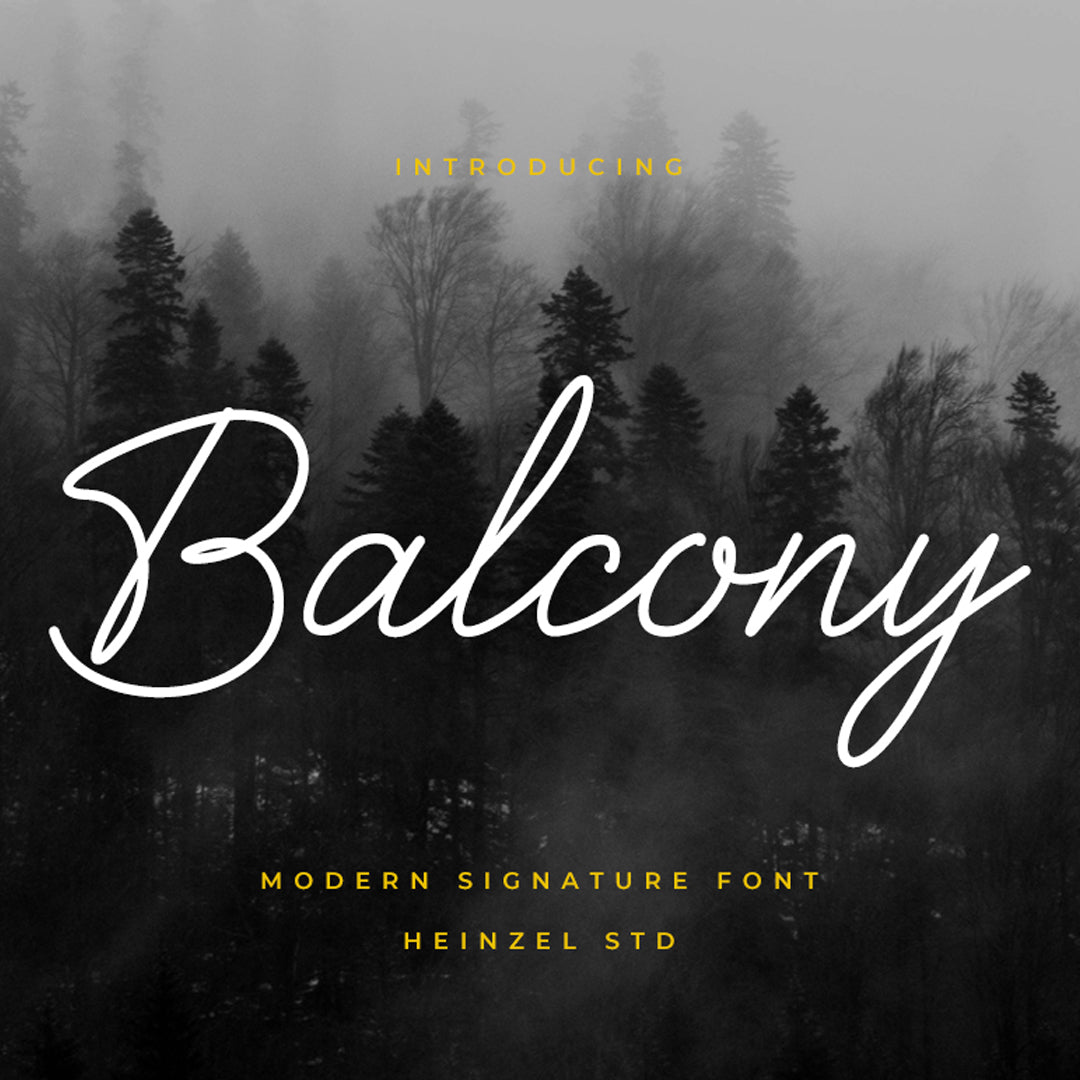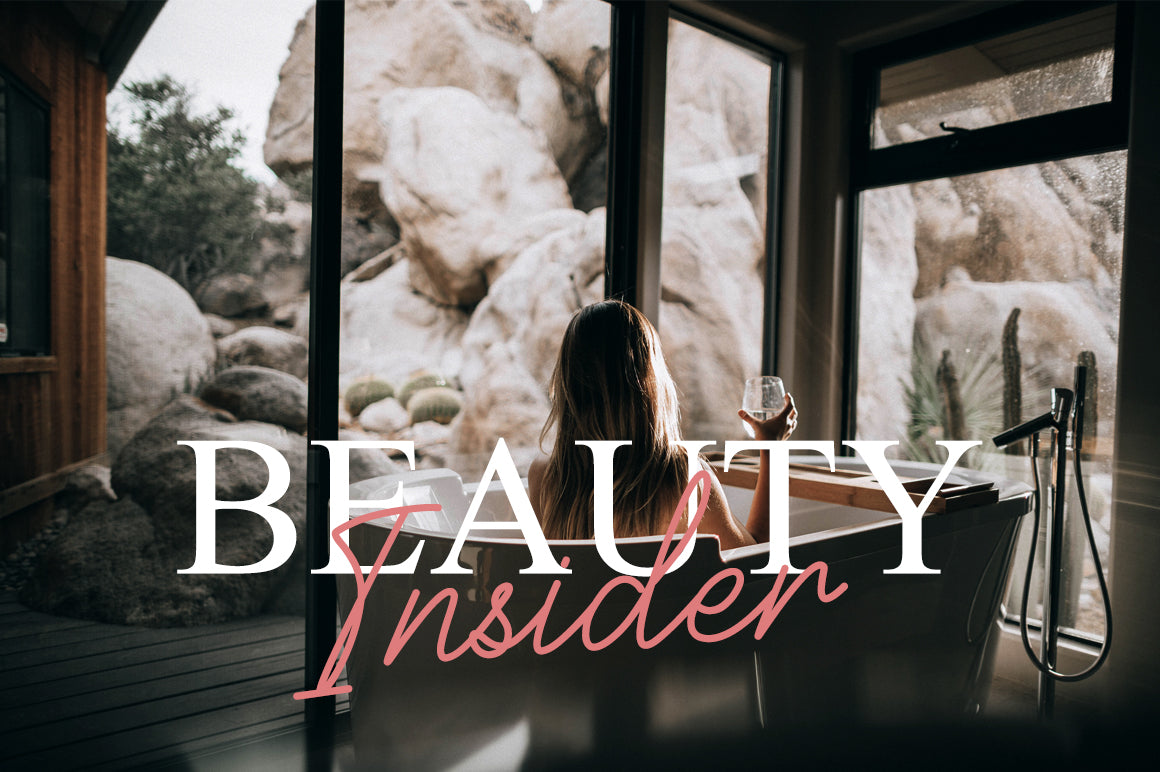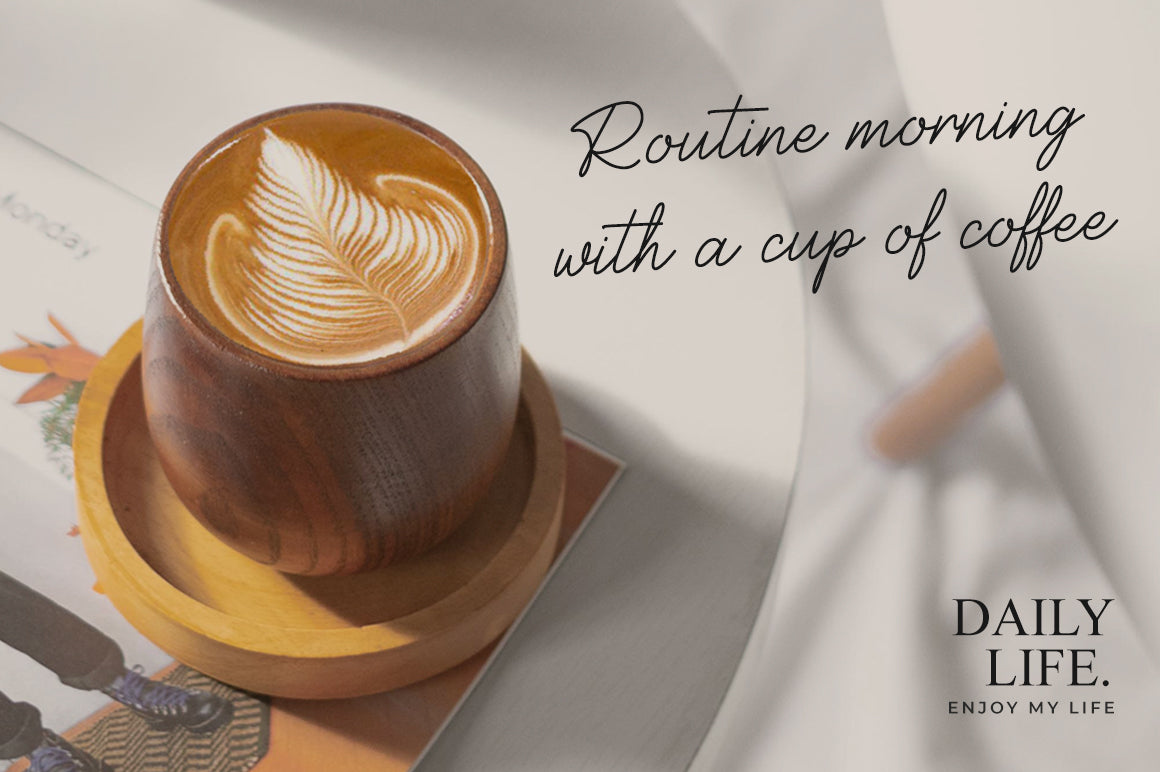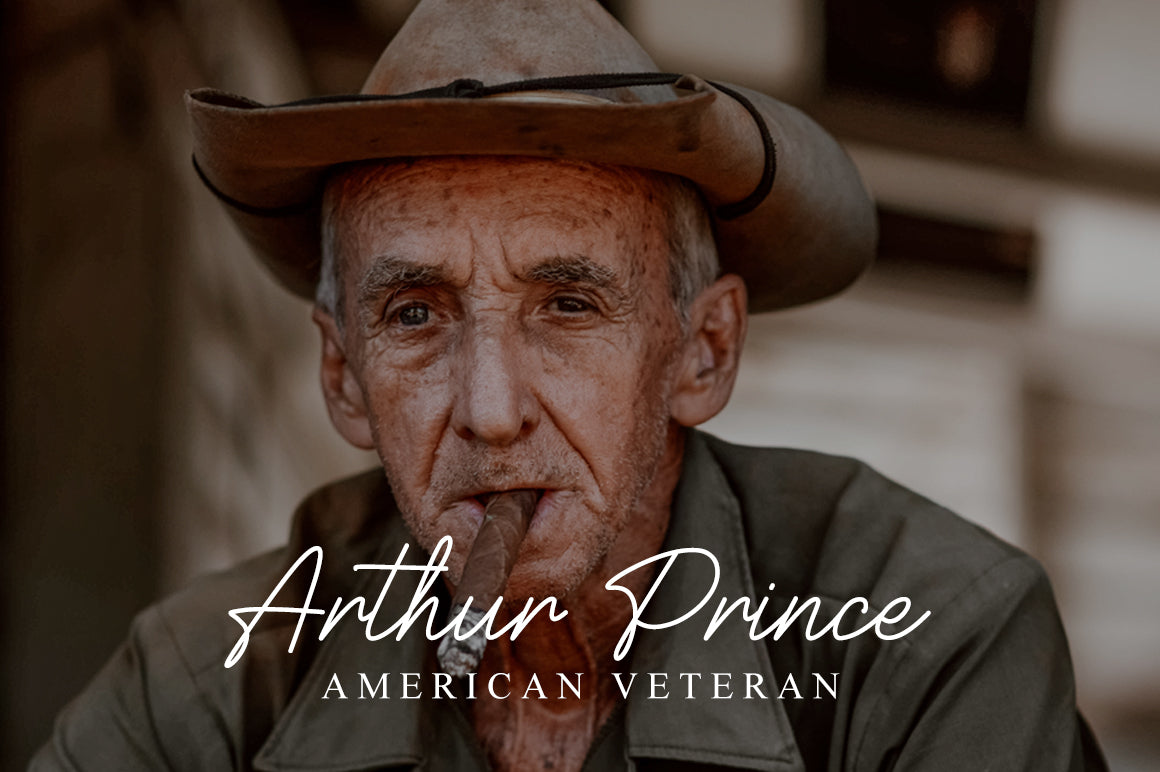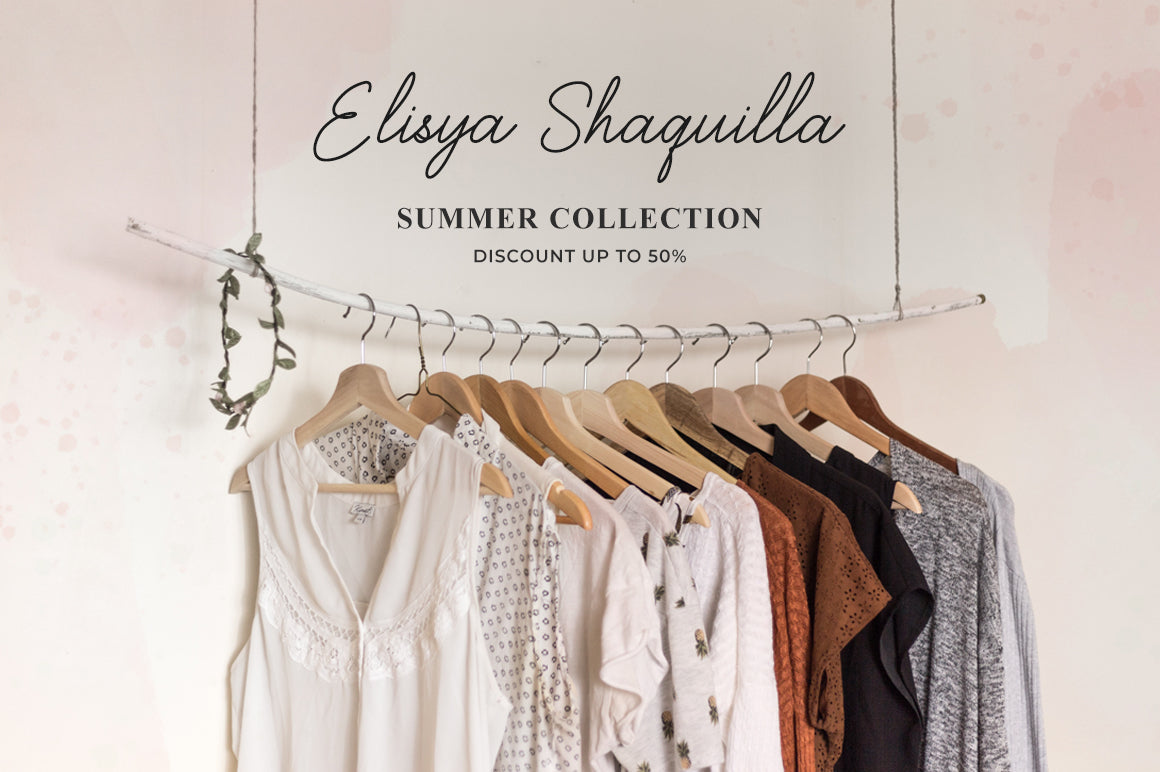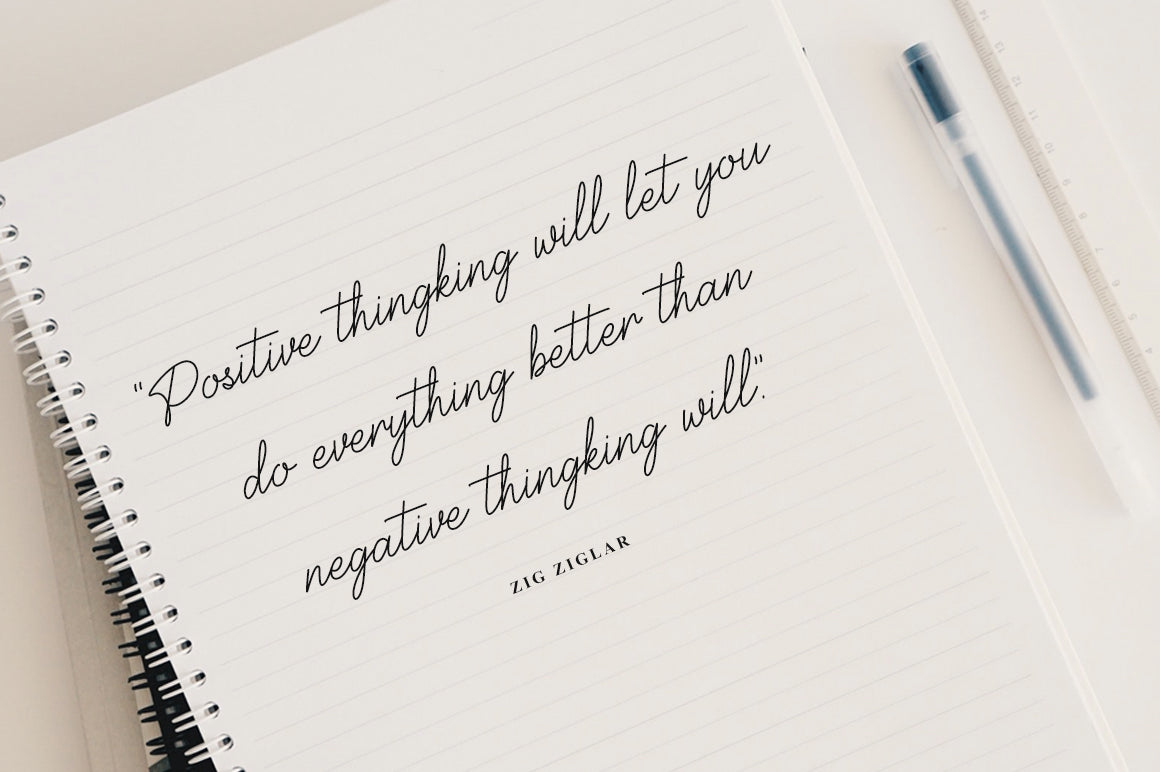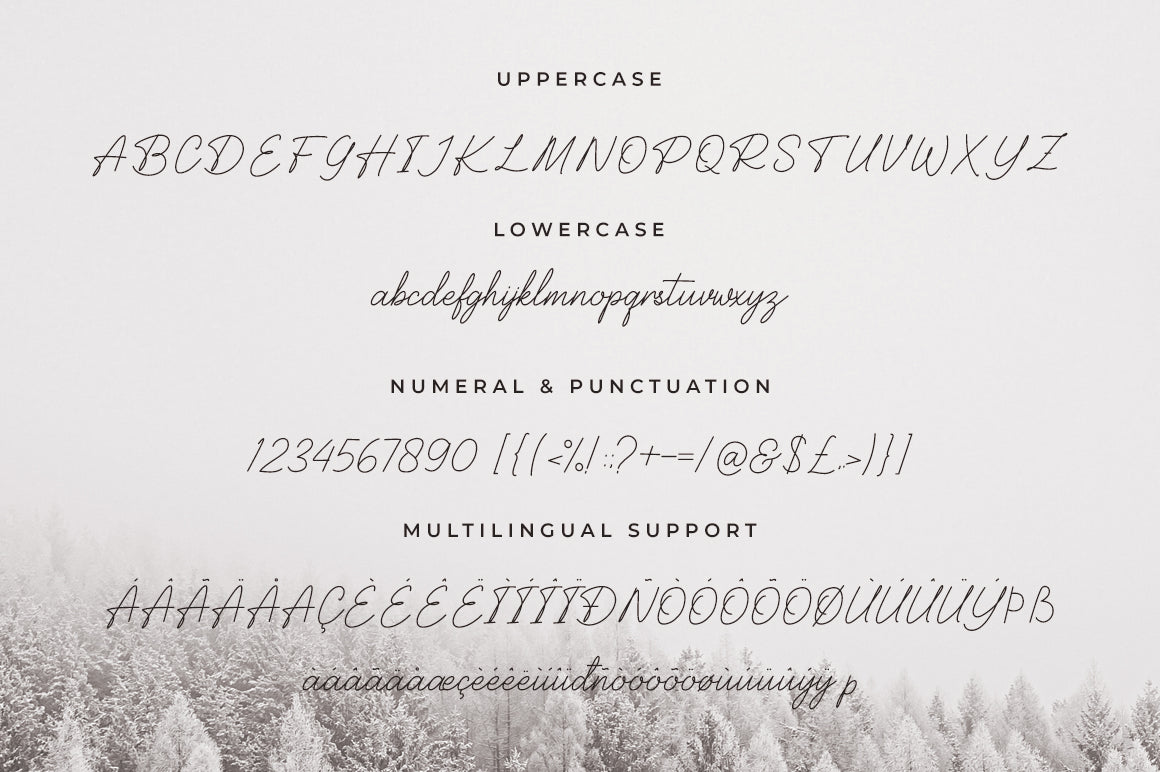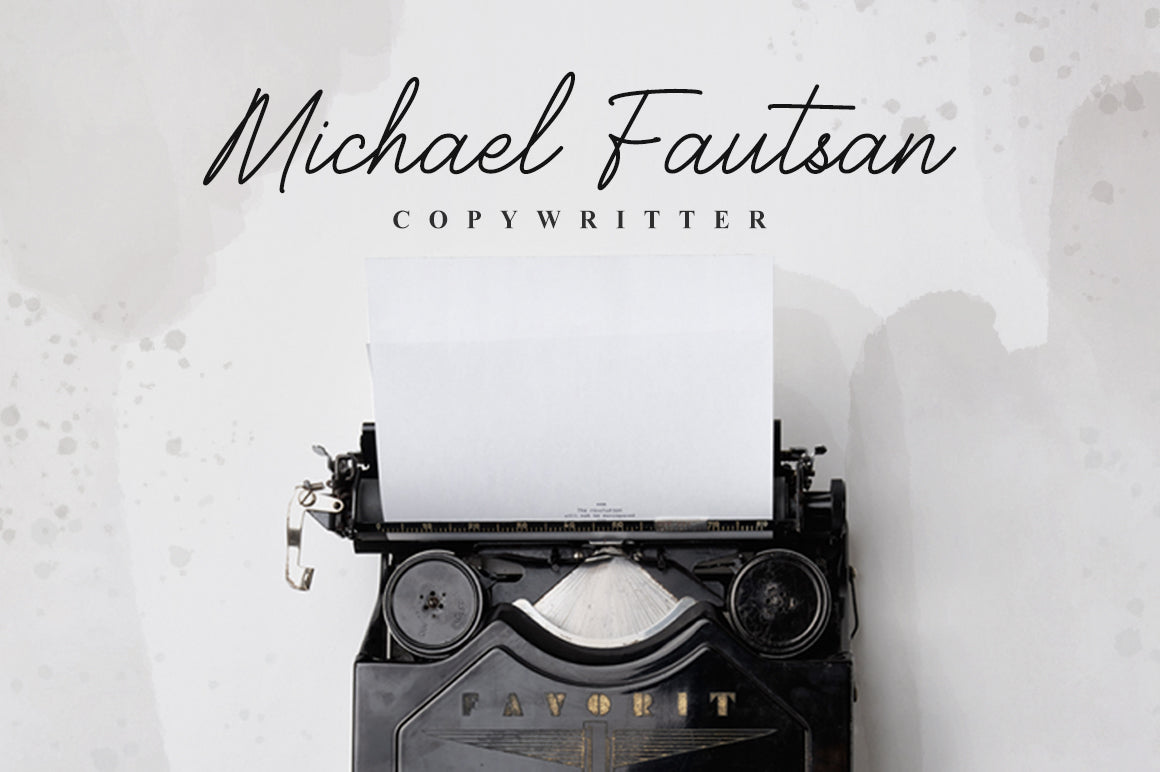
Balcony Elegant Signature Font
Balcony is a stylish and elegant signature font designed to bring a personal touch to your creative projects. With its smooth, handwritten strokes and modern feel, Balcony is perfect for branding, logos, wedding invitations, business cards, social media graphics, and stylish packaging.
Crafted with attention to detail, Balcony combines sophistication and readability, making it versatile for both digital and print designs. Whether you’re a designer, blogger, or entrepreneur, this font will add a natural handwritten charm to your work.
Balcony is a script-style signature font featuring handwritten strokes with a modern design. It is suitable for both digital and print applications.